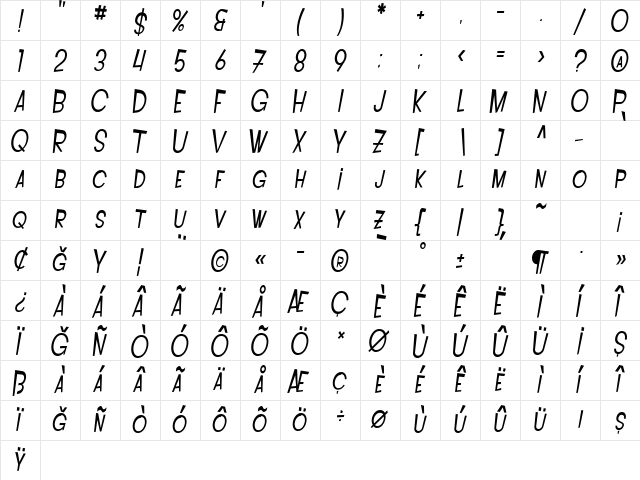
PCLifeIntoxExt Regular
PCLifeIntoxExt is a composed and adaptable typeface that performs quietly and consistently across a wide range of design contexts.